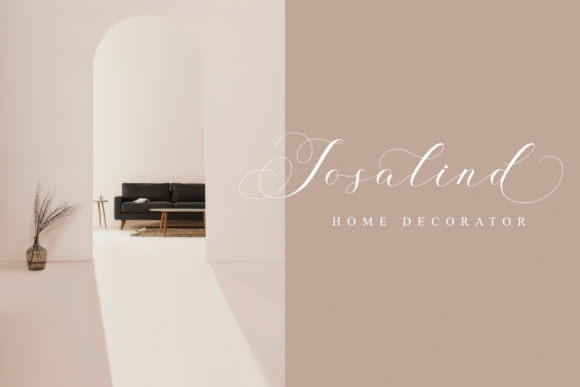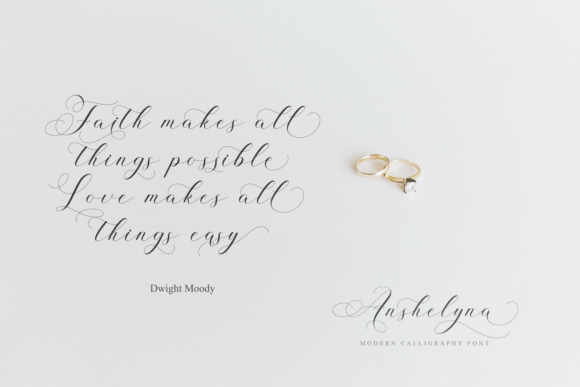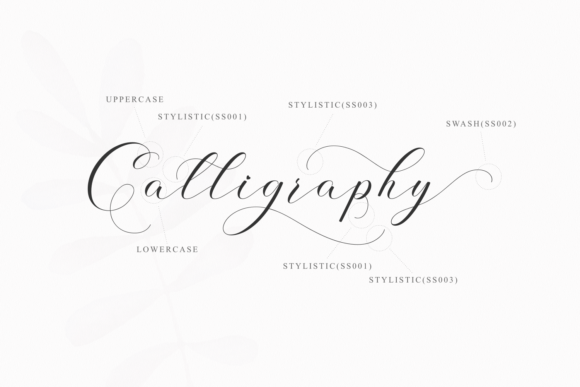
The Sweet and Elegant Anshelyna Font: A Designer’s Delight
I’ll never forget the moment I stumbled upon the Anshelyna font. I was working on a project for a client who wanted a elegant and sophisticated look, but I was struggling to find the right font. That’s when I discovered Anshelyna, and it instantly fell into place. The sweet and elegant handwritten font won my heart with its classy calligraphic influences and fresh, contemporary feel.
- ✅ Elegant and sophisticated look that’s perfect for high-end projects
- ✅ Classy calligraphic influences that add a touch of luxury
- ✅ Fresh and contemporary feel that’s perfect for modern designs
- ⚠️ Some users may find the font a bit too ornate for certain projects
- ⚠️ Limited availability of certain characters and glyphs
The Story Behind Anshelyna
Anshelyna was designed by a talented font designer who wanted to create a elegant and sophisticated handwritten font that would add a touch of luxury to any project. The designer drew inspiration from classic calligraphy and modern typography to create a font that’s both timeless and fresh.
| Author | kammaqsum |
A: Anshelyna is a sweet and elegant handwritten font that’s perfect for high-end projects. It features classy calligraphic influences and a fresh, contemporary feel.
A: Anshelyna is perfect for projects that require a touch of elegance and sophistication, such as luxury branding, high-end packaging, and stylish stationery.
A: Yes, Anshelyna is highly legible, even at small font sizes. Its clear and elegant letterforms make it perfect for body text and headlines.